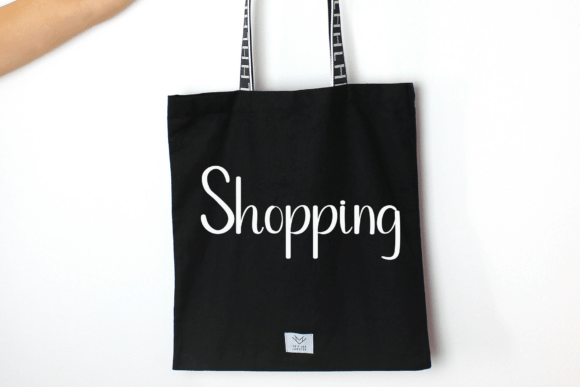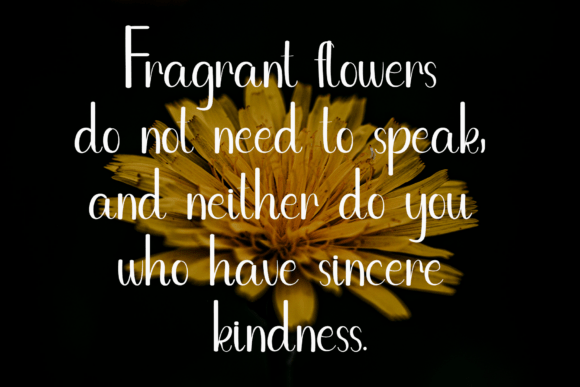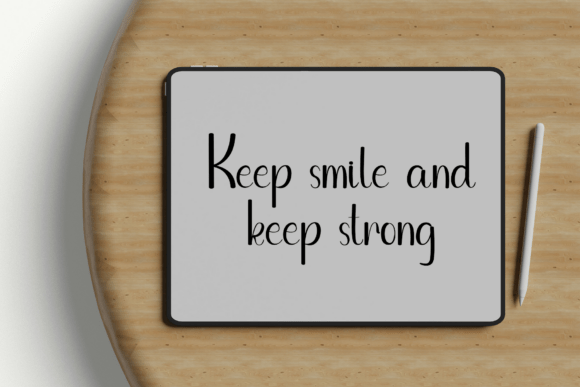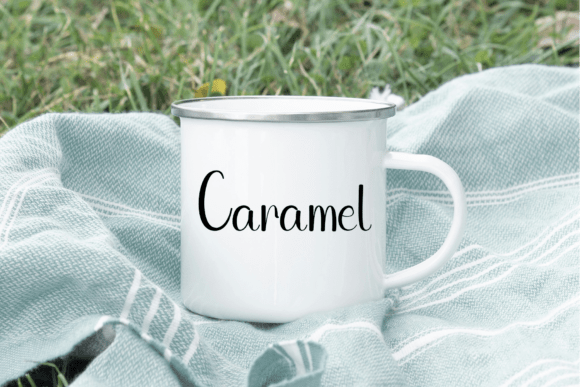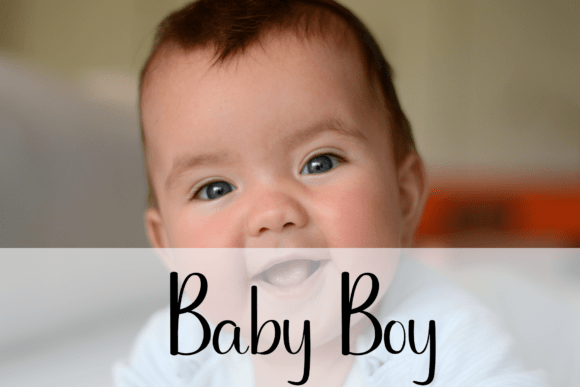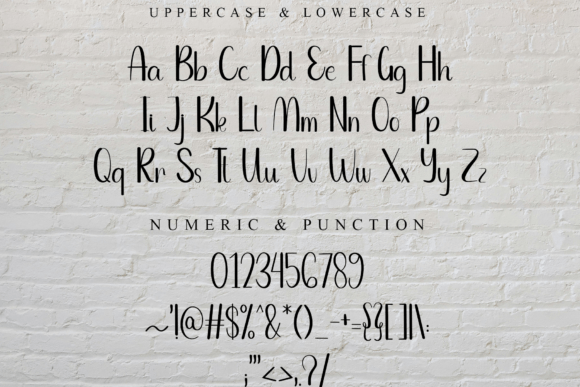
Camping Font: The Perfect Choice for Your Creative Projects
Are you looking for a font that exudes warmth and friendliness? Do you want to add a personal touch to your designs, invitations, and social media graphics? Look no further than the Camping Font! This casual and creative font is perfect for anyone who wants to create a relaxed and approachable feel in their designs.
The Characteristics of Camping Font
The Camping Font is a hand-drawn font that features round, playful strokes. These strokes create a charming and unique aesthetic that is perfect for a variety of design projects. The font’s casual and creative vibe makes it ideal for personal projects, invitations, and social media graphics. Whether you’re a designer, crafter, or simply someone who loves to create, the Camping Font is a great choice.
What Makes Camping Font Special?
So, what sets the Camping Font apart from other fonts? For starters, its charming, hand-drawn aesthetic adds a fun and unique touch to any design. The font’s round, playful strokes create a relaxed and approachable feel that is perfect for designs that need a personal touch. Additionally, the Camping Font is equipped with standard PUA Encoded glyphs, which make it compatible with a wide range of applications.
The Camping Font is a great choice for designers and crafters who want to add a personal touch to their projects. Whether you’re creating invitations, social media graphics, or personal projects, this font is perfect for adding a unique and creative element. The font’s casual and creative vibe makes it ideal for a variety of design projects, from DIY crafts to professional design work.
Tips for Using Camping Font
Here are a few tips for using the Camping Font in your designs:
- Use the font for personal projects, such as invitations, social media graphics, and DIY crafts.
- Experiment with different font sizes and colors to create a unique look.
- Pair the Camping Font with other fonts to create a contrasting look.
- Use the font’s hand-drawn aesthetic to add a personal touch to your designs.
In conclusion, the Camping Font is a great choice for designers and crafters who want to add a personal touch to their projects. Its charming, hand-drawn aesthetic and casual, creative vibe make it perfect for a variety of design projects. With its compatibility with various application engines and standard PUA Encoded glyphs, the Camping Font is easy to use and versatile. So why not give it a try and see how it can add a unique touch to your designs?
Key Features of Camping Font
- Hand-drawn font with round, playful strokes
- Casual and creative vibe
- Perfect for personal projects, invitations, and social media graphics
- Equipped with standard PUA Encoded glyphs